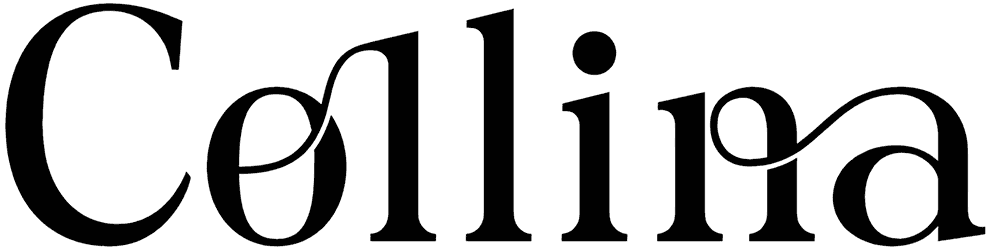
Collina Font
Collina is an elegant font that works well in all projects, and by breaking away from the standards, it has broken the repetitive trends of these serious fonts. This font can transcend styles and create a timeless feel in any design.
Collina, with its special twist, can become a part of your brand identity and talk about your professionalism with the audience. This issue has made it a minimal and ideal choice for writing letters, office set design, and website writing.